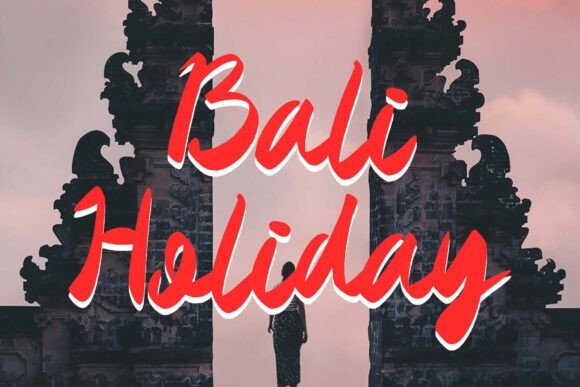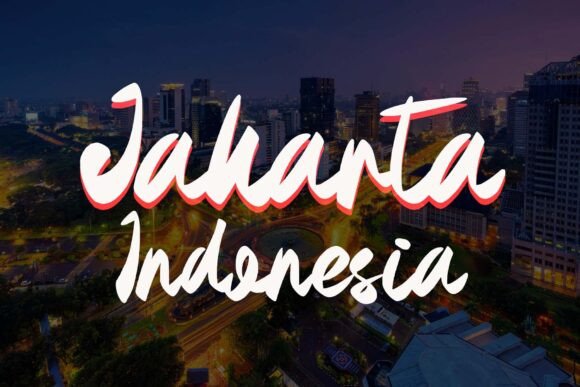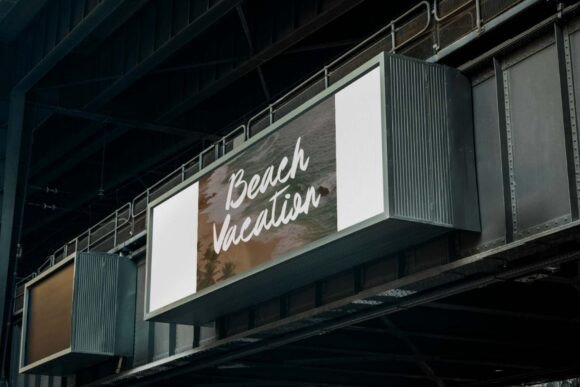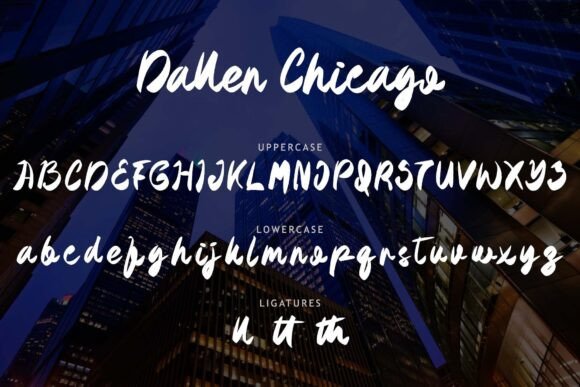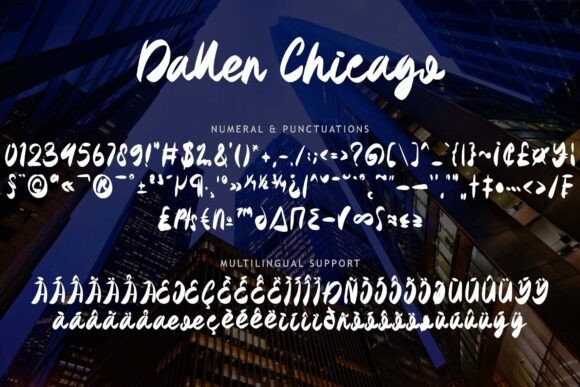
Dallen Chicago Font: Elevate Your Designs with Elegance and Sophistication
In the world of typography, a font can make or break a design. For designers and crafters looking to add a touch of elegance and sophistication to their projects, the Dallen Chicago Font is an excellent choice. This unique and elegant handwritten font is perfect for a wide range of applications, from business branding to festive designs.
What is Dallen Chicago Font?
Dallen Chicago is a beautifully crafted handwritten font that exudes elegance and refinement. It features a distinctive style that sets it apart from other fonts, making it ideal for designers who want to create unique and eye-catching designs. The font comes with a comprehensive set of characters, including:
- Capital letters
- Lowercase letters
- Numbers
- Ligatures
- Punctuation marks
- Multilingual support
This extensive character set ensures that you have everything you need to create stunning designs that convey your message with clarity and style.
The Dallen Chicago Font is incredibly versatile and can be used for a variety of design projects, including:
- Business branding: Create a lasting impression with a unique and elegant font that reflects your brand’s personality.
- Posters: Add a touch of sophistication to your posters and make them stand out.
- Stickers: Design eye-catching stickers that are perfect for promotions, events, or everyday use.
- Christmas, winter, and New Year designs: Add a festive touch to your holiday designs with a font that exudes warmth and elegance.
- Valentine’s Day designs: Create romantic and beautiful designs that capture the essence of this special day.
- Invitations: Design elegant and sophisticated invitations for weddings, parties, and other special events.
Why Choose Dallen Chicago Font?
There are many reasons why designers and crafters should choose the Dallen Chicago Font for their projects. Here are a few:
- Unique and elegant style: The font’s distinctive style sets it apart from other fonts, ensuring that your designs stand out.
- Comprehensive character set: With a wide range of characters, you have everything you need to create stunning designs.
- Multilingual support: The font supports multiple languages, making it perfect for designers who work with international clients.
Tips for Using Dallen Chicago Font
To get the most out of the Dallen Chicago Font, here are a few tips:
- Experiment with different sizes and colors: Find the perfect combination to make your design pop.
- Pair with other fonts: Combine Dallen Chicago with other fonts to create a unique and visually appealing design.
- Use for headlines and body text: The font’s elegance and sophistication make it perfect for both headlines and body text.
The Dallen Chicago Font is a versatile and elegant handwritten font that is perfect for designers and crafters looking to add a touch of sophistication to their projects. With its comprehensive character set, multilingual support, and ease of use, it’s an excellent choice for a wide range of applications. Whether you’re designing for business branding, festive occasions, or special events, this font is sure to elevate your designs and make them stand out.